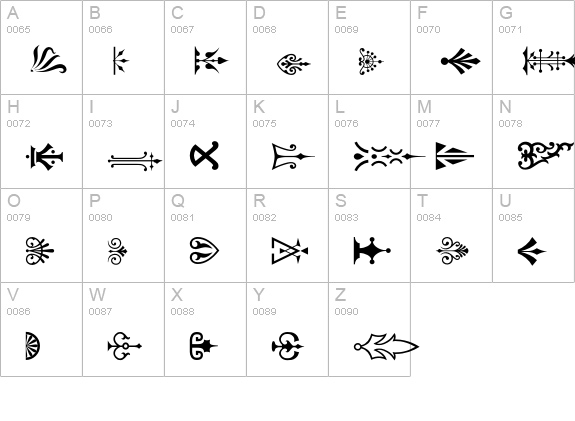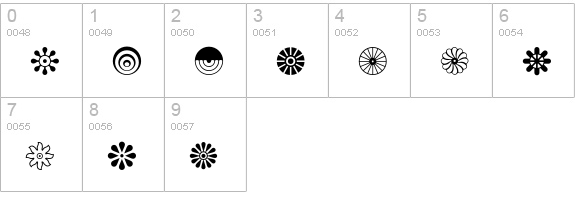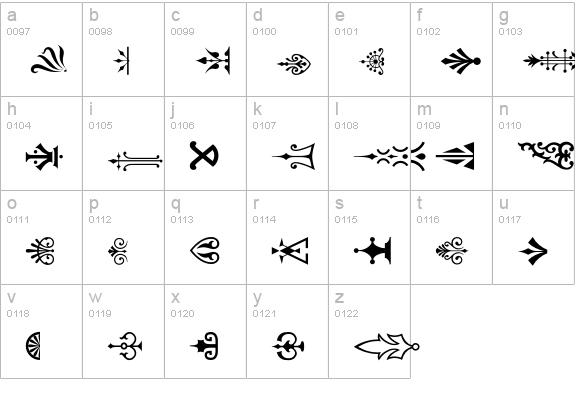
Ornament-Wood font is a stunning display typeface that exudes elegance and sophistication. This ornate font features intricate wood-inspired details that bring a touch of natural beauty to your designs. Perfect for adding a unique flair to invitations, logos, posters, and more, Ornament-Wood font is sure to make a statement. Best of all, Ornament-Wood font is completely free to download at FontsMarket.com. Whether you're a professional designer or a hobbyist looking to spice up your projects, this font is a fantastic choice. Don't miss out on the opportunity to enhance your creations with the exquisite charm of Ornament-Wood font - download it today and let your creativity shine!